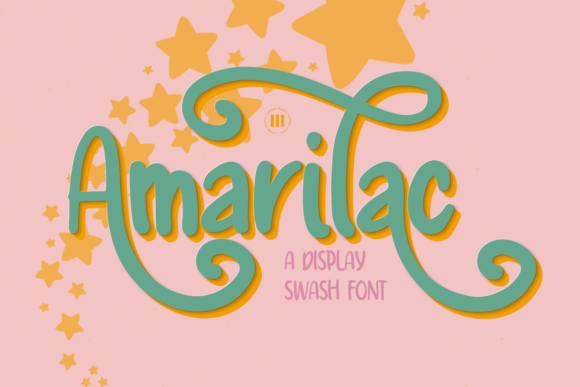
The Designer’s Delight: Amarilac Font
Have you ever been stuck on a design project, scrolling through font after font, searching for that perfect something to elevate your creation? I certainly have. It was during one of those moments, working on a client’s luxury brand campaign, that I stumbled upon the stunning Amarilac font. This lovely and distinct display font exudes elegance and class, making it an instant favorite. In this article, I’ll share my experience with Amarilac, its features, and how to make the most of it in your designs.
A Personal Encounter with Amarilac
I was working on a high-end fashion brand’s logo, aiming to create a sophisticated and refreshing look. The client wanted a font that would convey luxury and exclusivity. After hours of searching, I discovered Amarilac. Its elegant lines, beautiful swashes, and refined aesthetic immediately caught my attention. I was impressed by its PUA encoding, which made it easy to access all glyphs and swashes. It was love at first sight! ✨
- ✨ Elegant and classy design, perfect for luxury brands
- 💫 Beautiful, refined aesthetic that adds a touch of sophistication to any design
- 🎨 Highly versatile, suitable for various design projects, from logos to invitations
While Amarilac is an excellent font, there are a few minor considerations to keep in mind:
- ⚠️ It may not be the best choice for body text due to its display font nature
- 🤔 Some users might find the font a bit too ornate for certain projects
Amarilac was crafted with the intention of creating a font that embodies elegance and class. The designer aimed to produce a typeface that would be both beautiful and refreshing, perfect for those seeking to add a touch of sophistication to their designs. While the actual designer behind Amarilac remains a mystery, their creation has undoubtedly made a significant impact on the design community.
A: PUA (Private Use Area) encoding allows font users to access a wide range of glyphs and swashes, making it easier to customize and personalize their designs.
Q: Is Amarilac suitable for body text?
A: While Amarilac is a beautiful font, it’s primarily designed as a display font. It may not be the best choice for body text due to its elegant and refined nature.